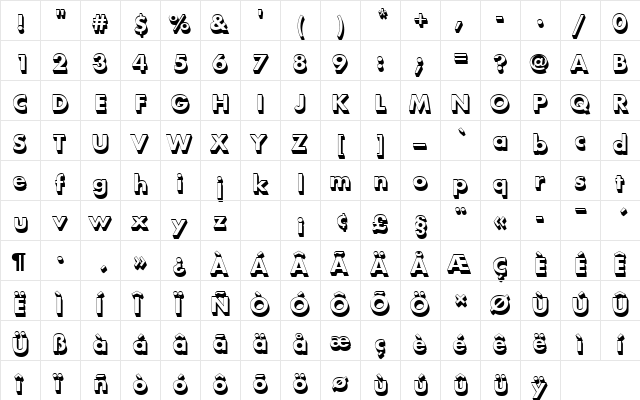
FuturaTBolSh1 Regular
Design Context for FuturaTBolSh1 Typeface
FuturaTBolSh1 has a distinctly futuristic character, with geometric precision and clean angles that feel at home in technology, gaming, and sci-fi contexts.